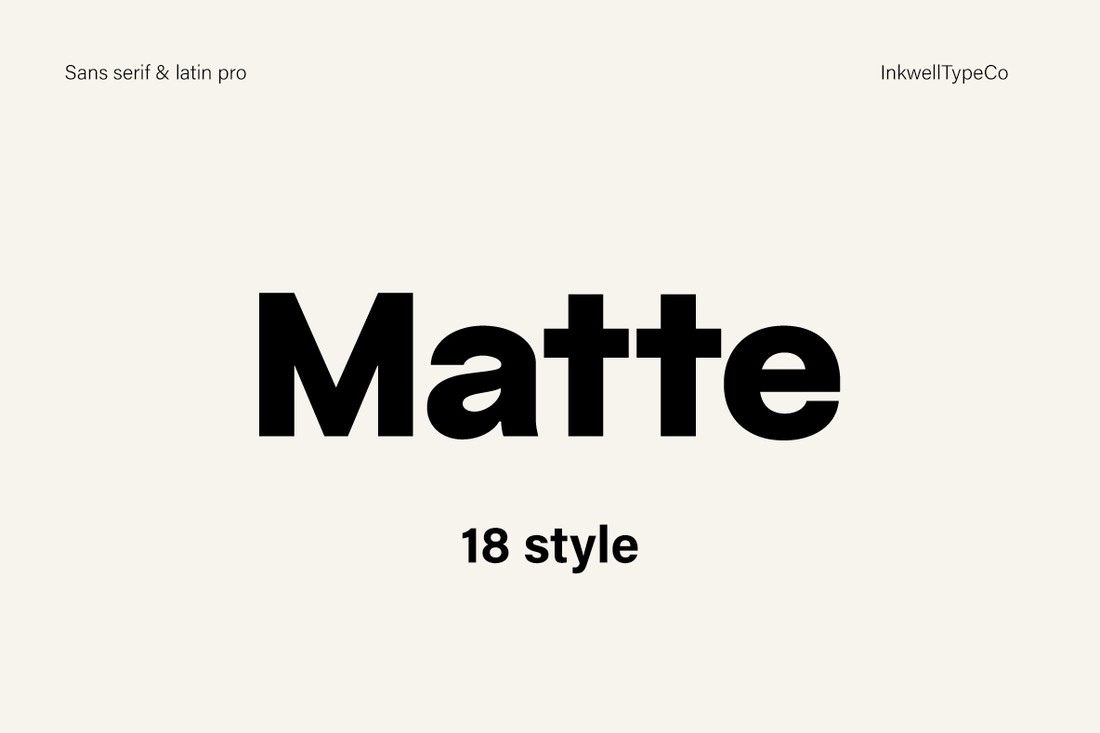
Matte Font
Matte Font is perfect for minimalist design studios, contemporary art galleries, sophisticated photography portfolios, premium cosmetics packaging, understated luxury brands, modern architectural presentations, refined fashion collections, subtle beauty product labeling, elegant interior design materials, and sophisticated lifestyle magazines. This refined typeface brings understated elegance and modern sophistication to any minimalist design project.
Matte Font is exciting because it embodies the sophisticated restraint and refined elegance of matte finishes, featuring smooth letterforms that possess the same subtle sophistication and understated luxury that defines premium matte surfaces and contemporary minimalist design. Its refined character instantly conveys modern elegance, sophisticated taste, and the confident restraint that chooses quality over ostentation and substance over superficial shine.
Matte Font family includes Ultra Light, Light, Regular, Medium, Bold, and Black weights with sophisticated alternates, subtle flourishes, minimalist ornamental elements, and refined symbols that enhance the elegant aesthetic, providing luxury designers with understated tools for creating typography that celebrates sophisticated simplicity and modern refinement with quiet confidence.
Luxury brand designers appreciate Matte Font for its exceptional ability to convey sophisticated elegance and understated luxury through subtly crafted letterforms. The font's refined character and minimalist details create immediate associations with premium quality, sophisticated taste, and the confident elegance that defines luxury brands focused on substance, quality, and the sophisticated appreciation of refined simplicity.
The design philosophy behind Matte Font celebrates the sophisticated beauty of understated elegance and the confident restraint that chooses quality over quantity, substance over flash, making it particularly effective for luxury brands, premium services, and sophisticated organizations that appeal to discerning audiences who appreciate refined quality. Luxury teams working on premium experiences find this font essential for sophisticated communication.
Whether used for luxury brand communications, premium product packaging, or sophisticated design presentations, Matte Font delivers the perfect combination of understated elegance and modern sophistication. Its refined appeal and minimalist luxury make it an indispensable choice for brands that celebrate sophisticated simplicity, promote understated elegance, and embody the confident restraint that defines truly sophisticated luxury and premium quality.